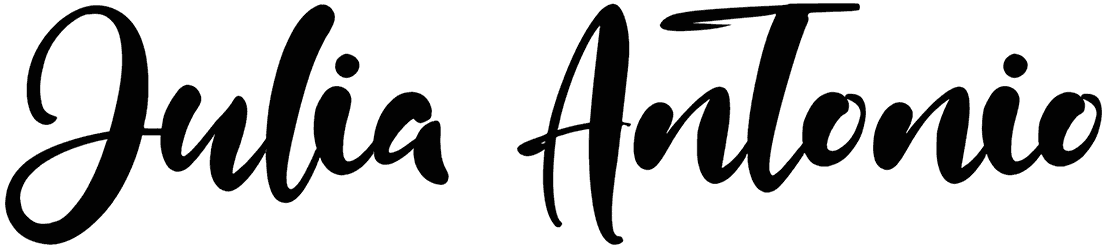
Julia Antonio Font
Let’s take a look at Julia Antonio, our new script font that offers a sweet and groovy sense. It comes with a full set of characters, and each of them not only has a thick, hand-made shape but also gives an artistic style.
With this charming font, you can create your favorite design in a second. It is the best choice for apparel prints, romantic Valentine’s letters, wedding invitation cards, branding, and advertising.